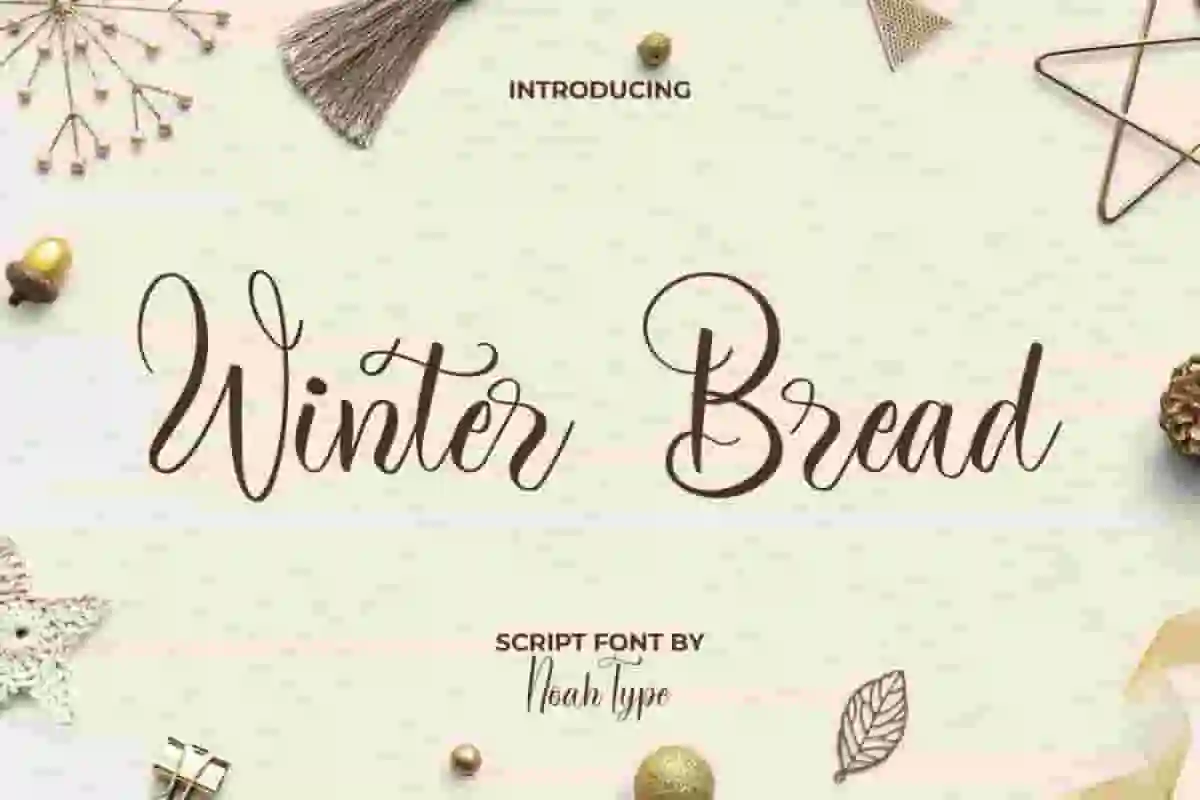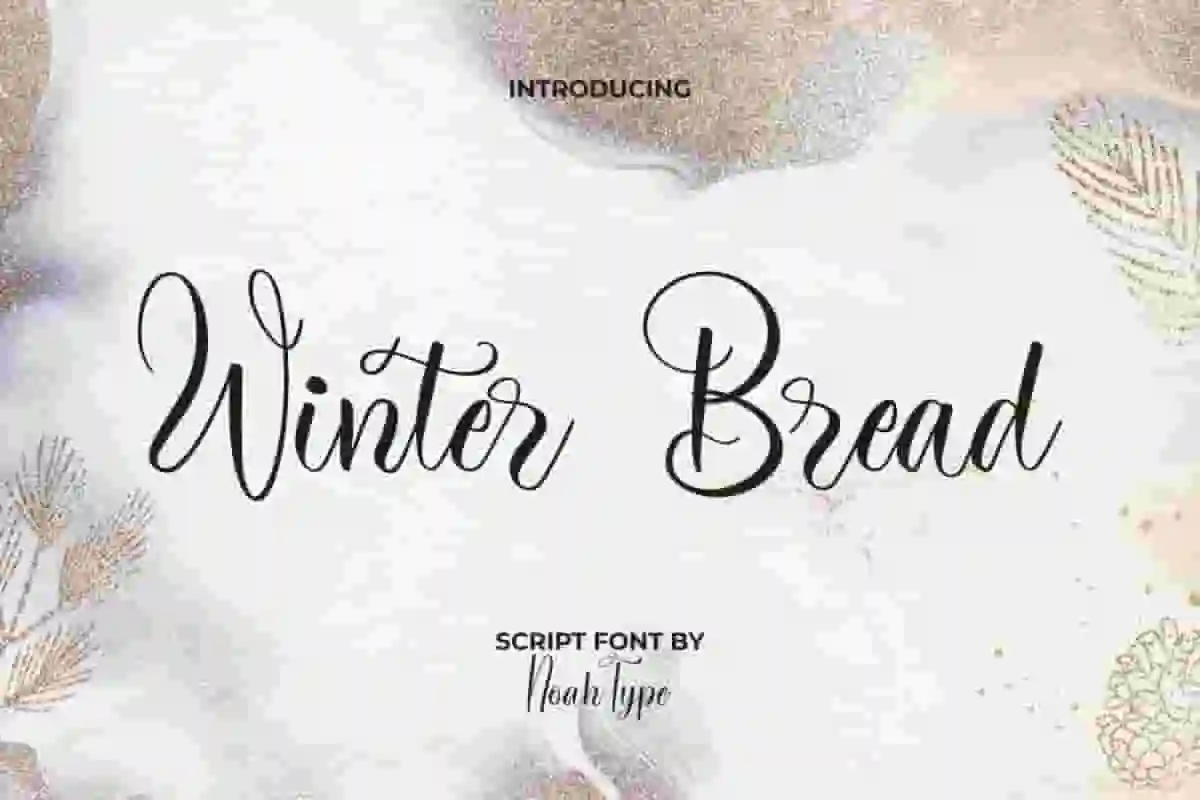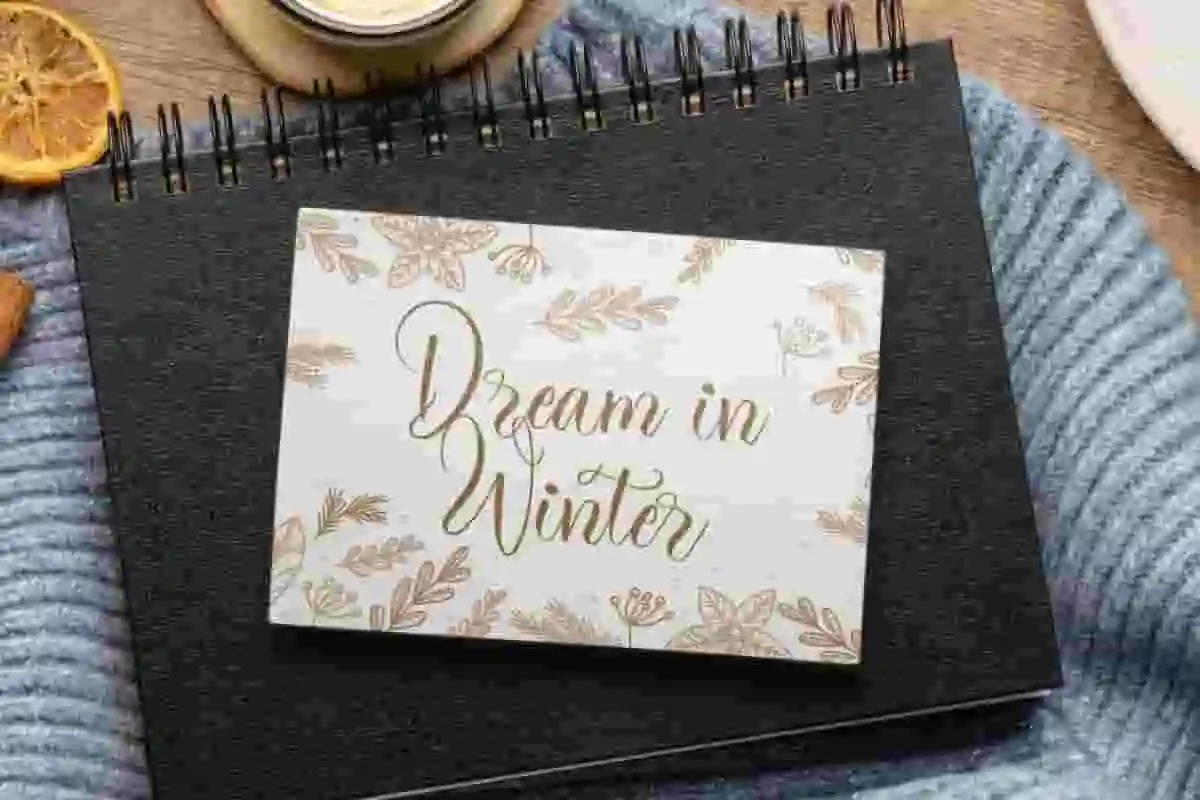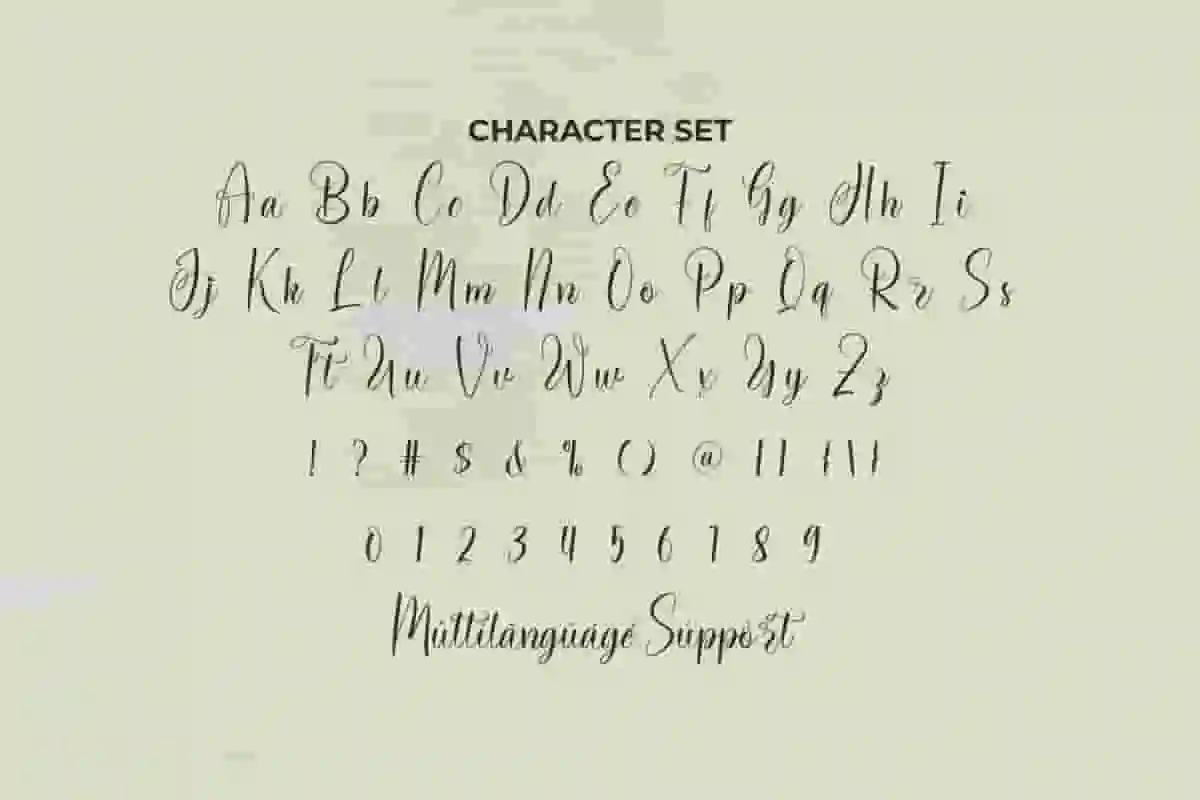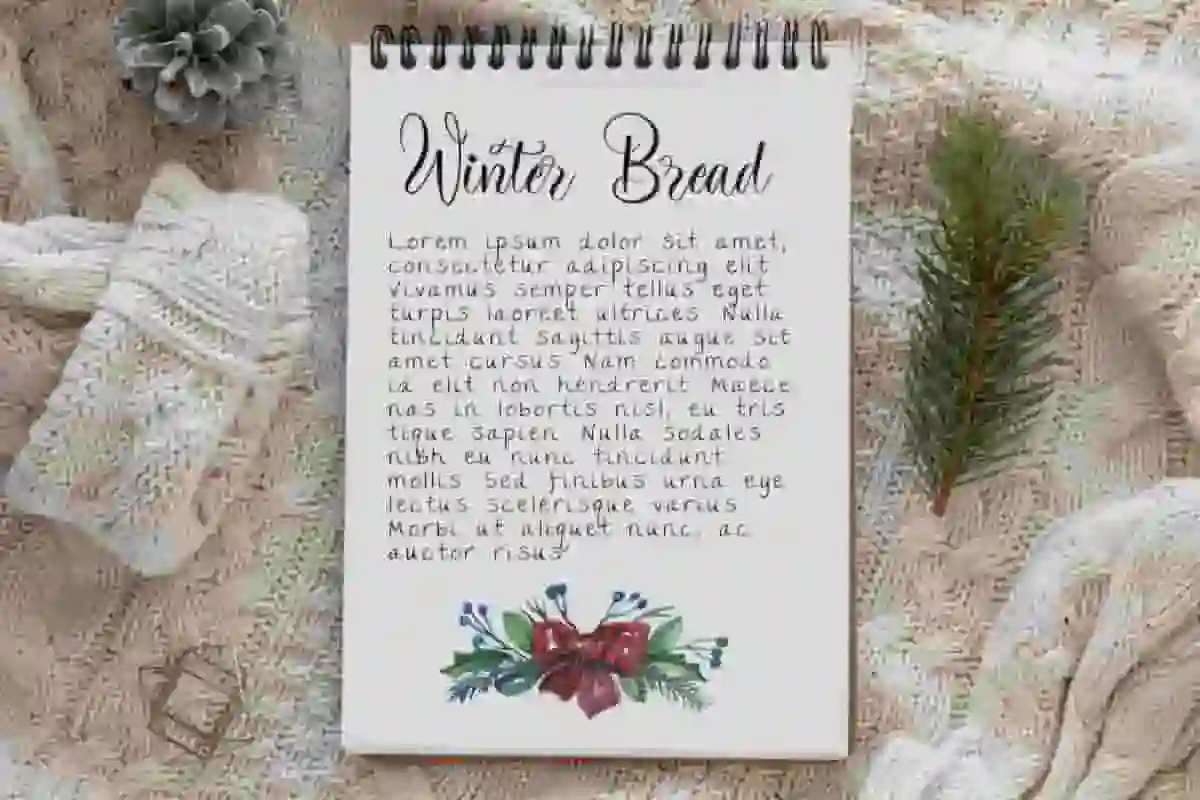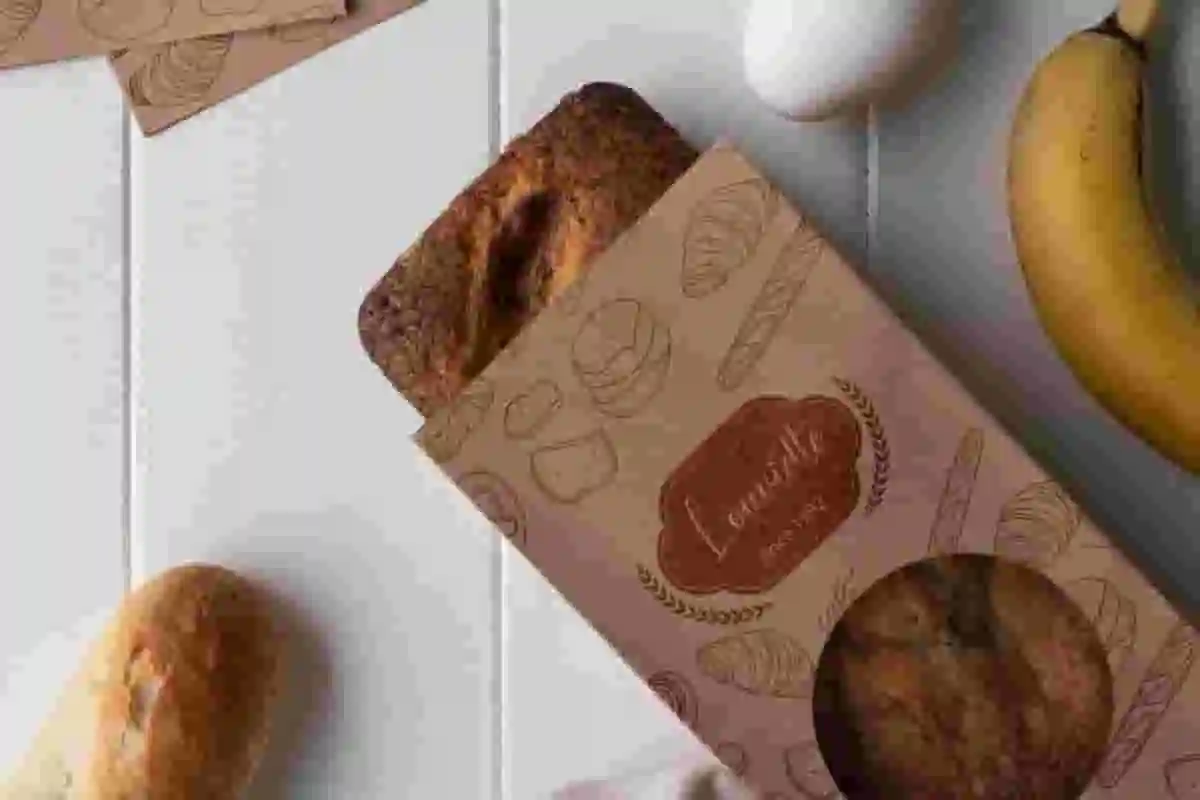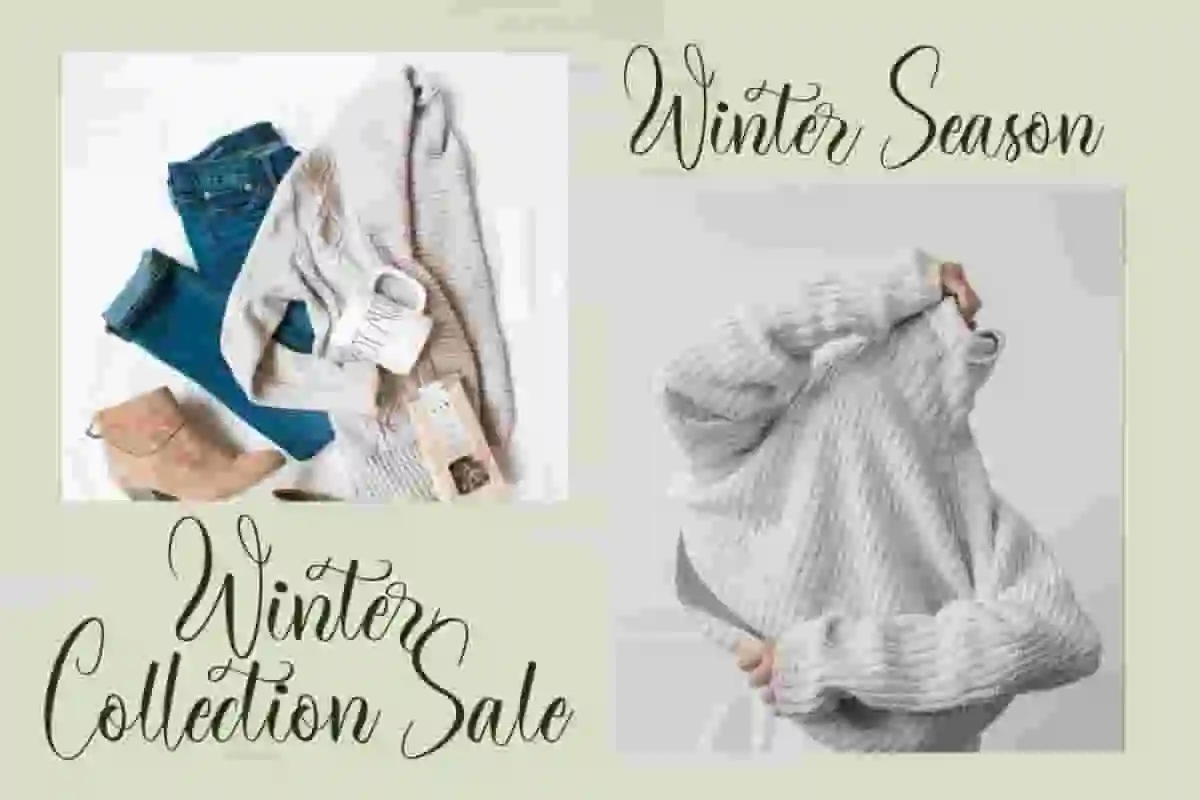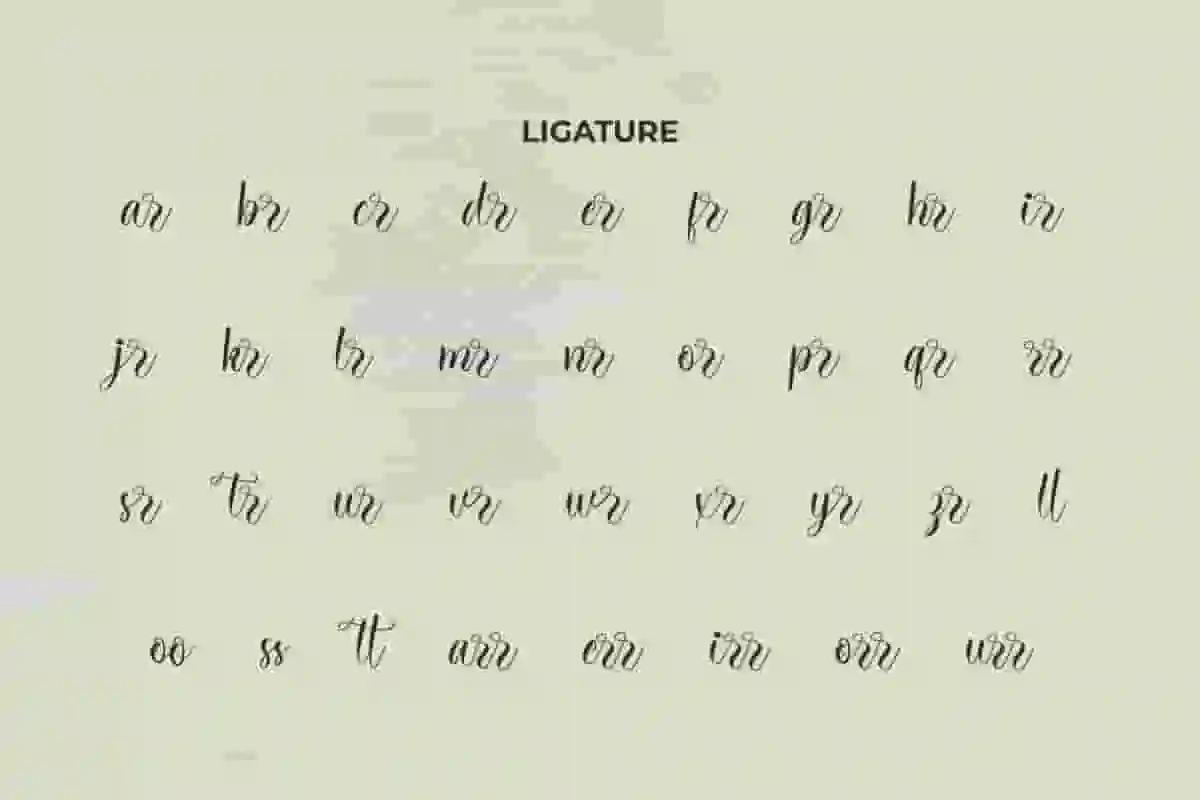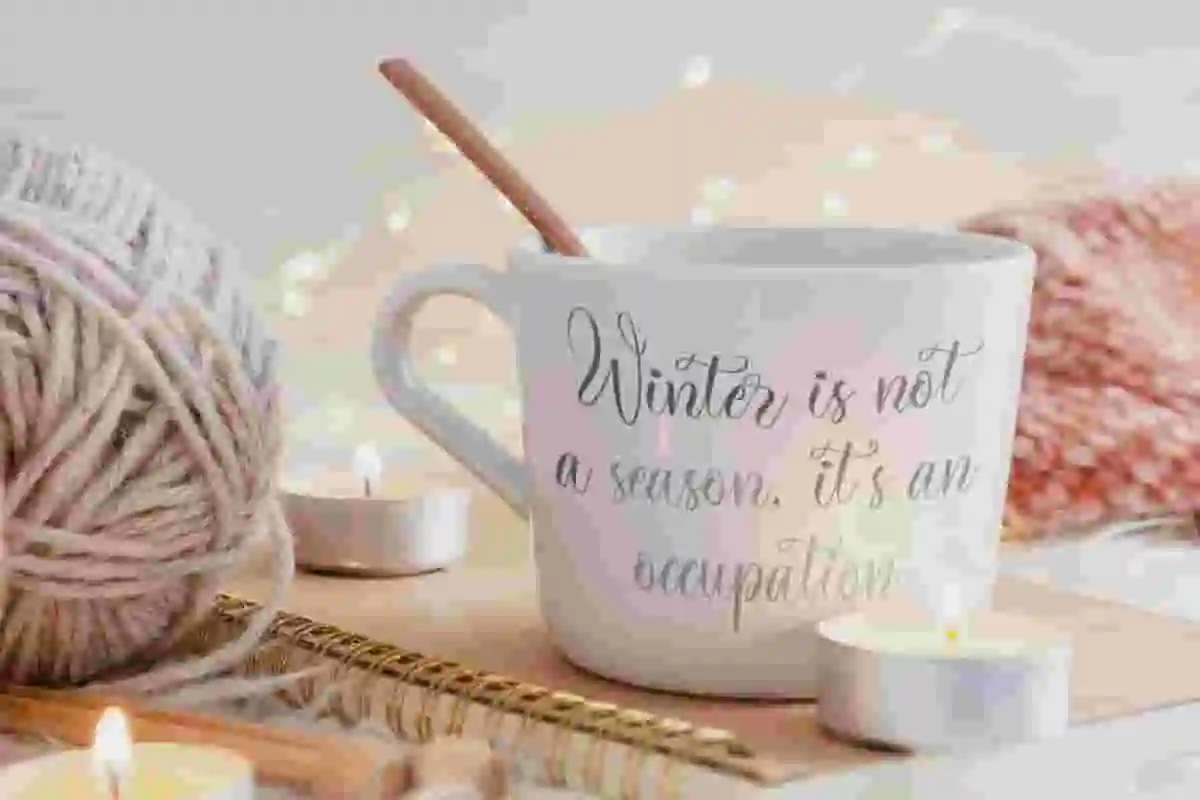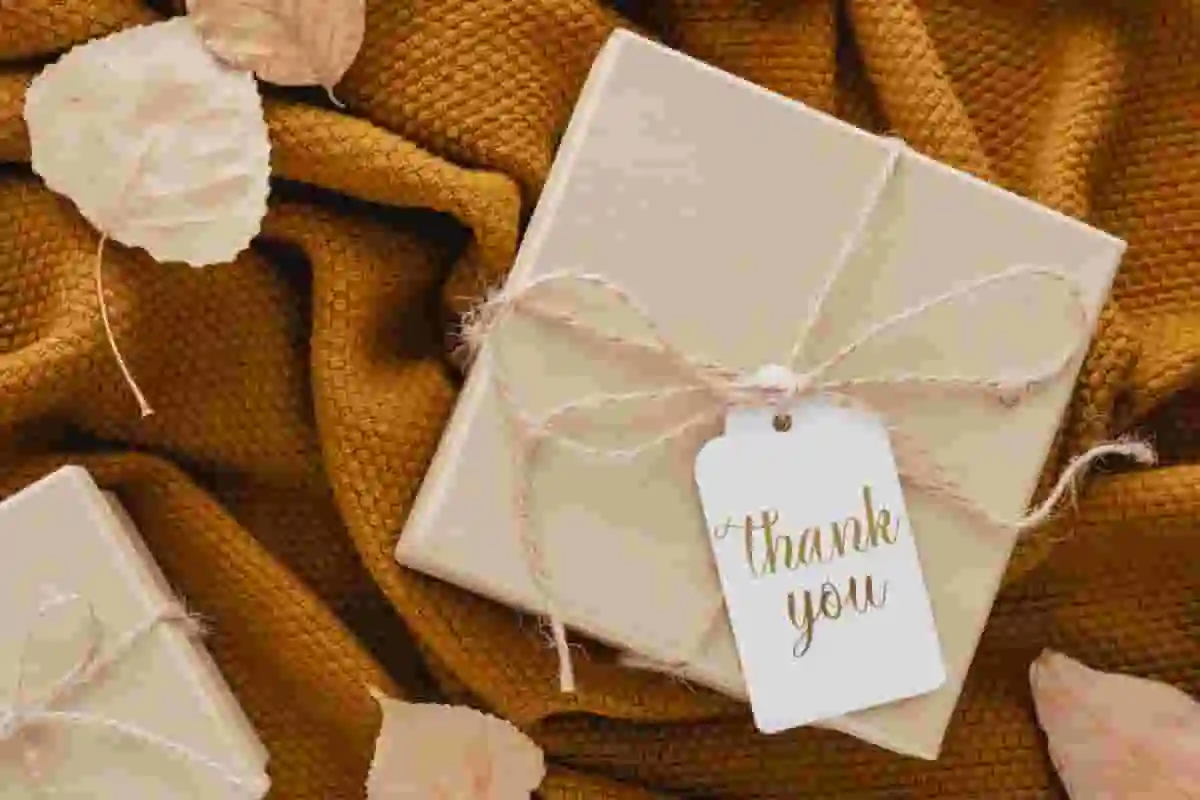
Winter Bread Font is a cute foody themed script font with calligraphic style. This font is made of cursive thin lines which looks good for a stylish design, such as business card, custom design, invitation, label, magazine catalog, menu, poster, product packaging, quote, title, watermark, website, and more!
Winter Bread Font includes full set of Uppercase and Lowercase Basic Characters, Numerals, and Punctuation. It also contain Ligature characters that will add perfection and making it suitable for many industries, such as bakery, cosmetic, fashion, florist, furniture, interior design, perfume, skincare, spa and salon, wedding or event organizer, etc.
Are you looking for a script font that combines elegance, warmth, and timeless charm? Meet Winter Bread Script Font, a beautifully handcrafted typeface designed to bring sophistication and personality to every design. Whether you’re working on branding, invitations, packaging, or social media graphics, this script font is the perfect choice to make your work stand out.
This font delivers a delicate balance between modern trends and classic script design, making it versatile for countless creative needs. From logos and wedding stationery to greeting cards and product labels, Winter Bread Script adds a touch of authenticity and warmth.